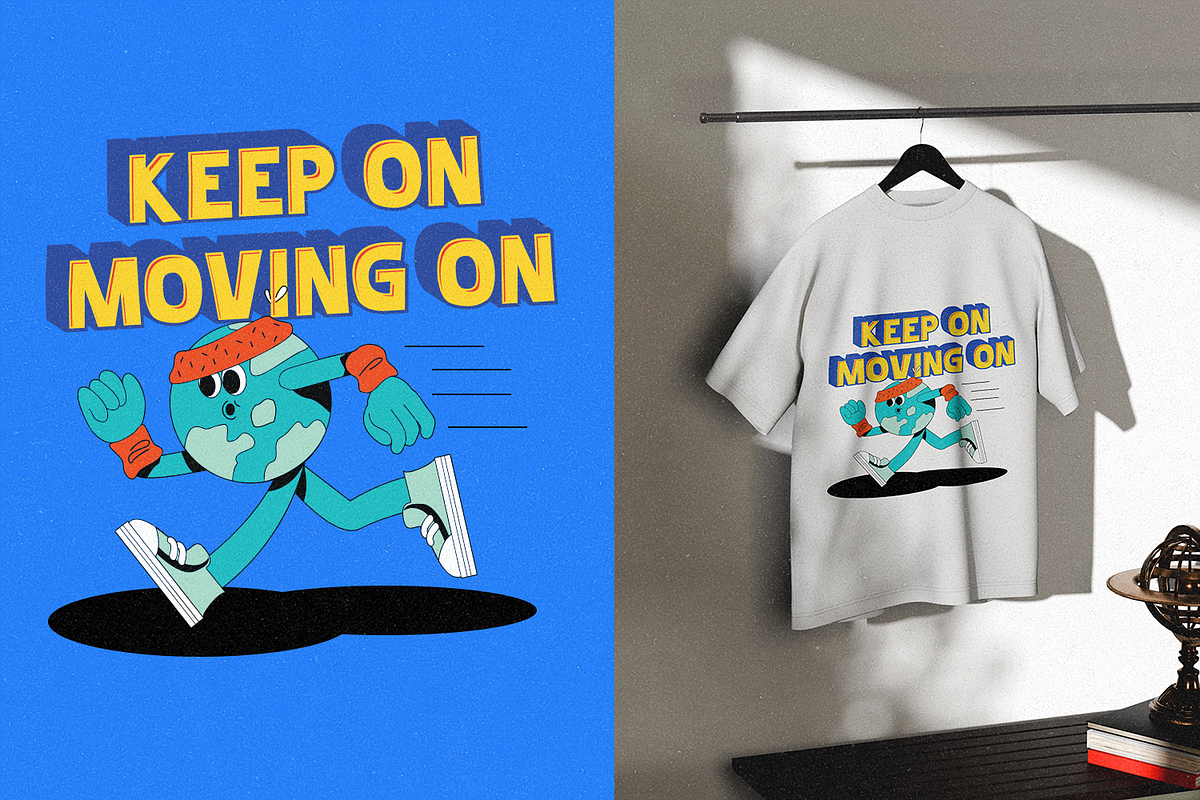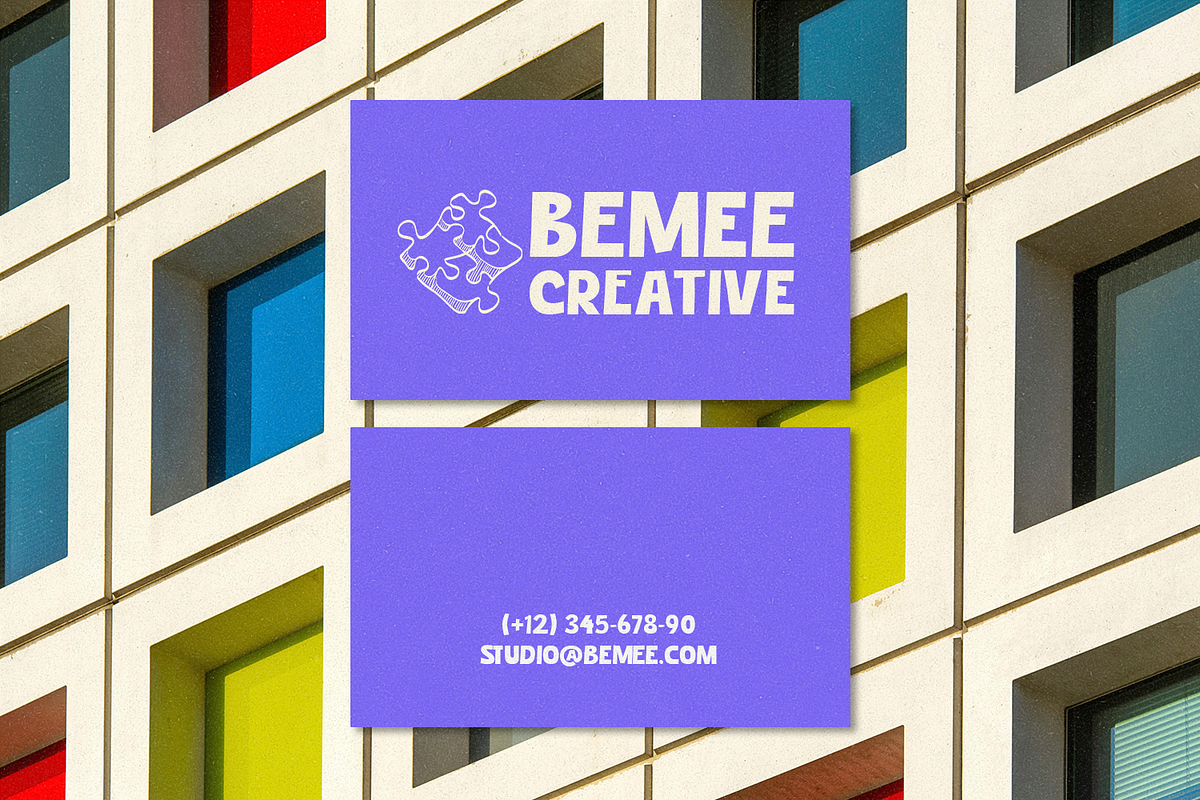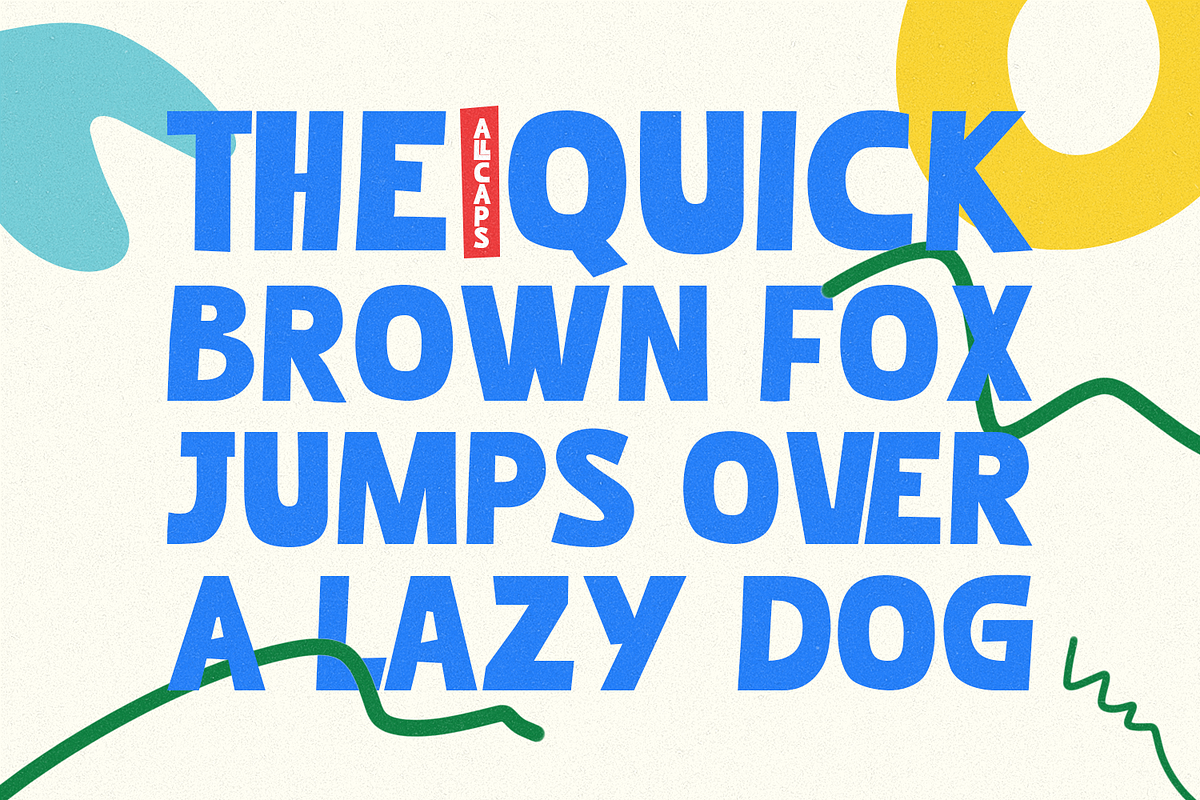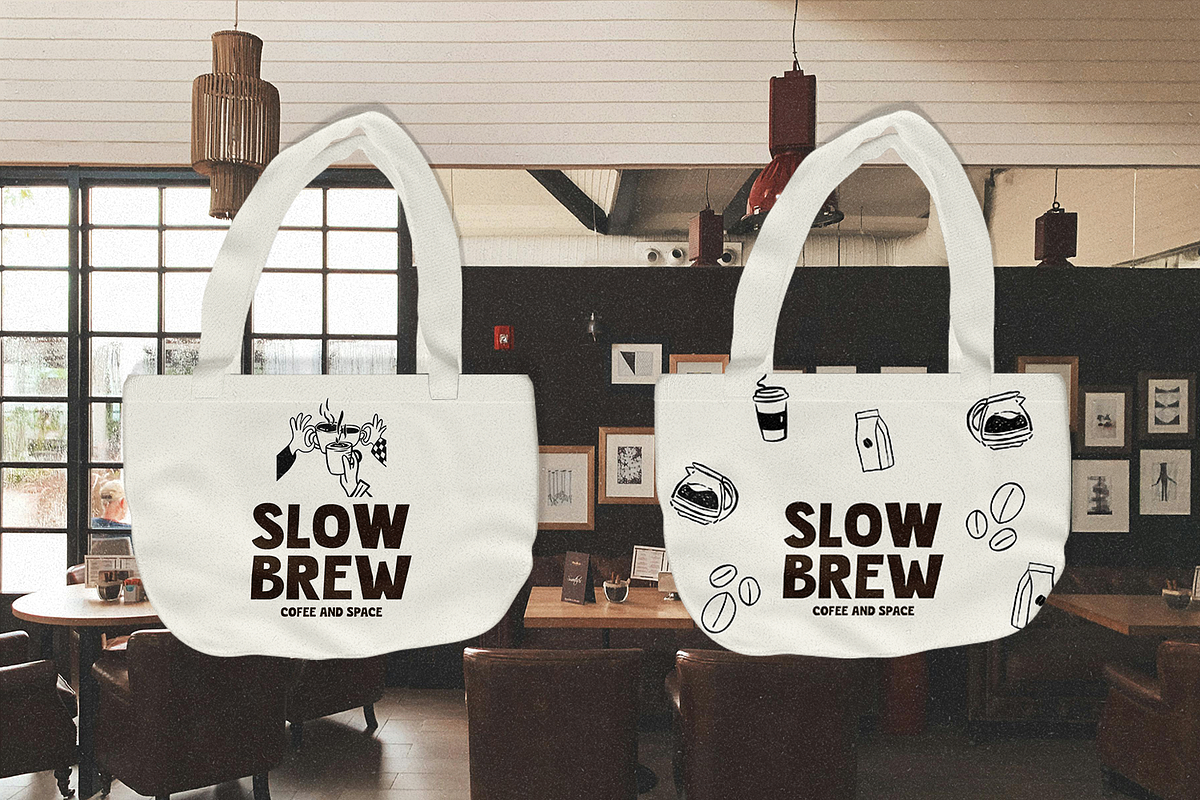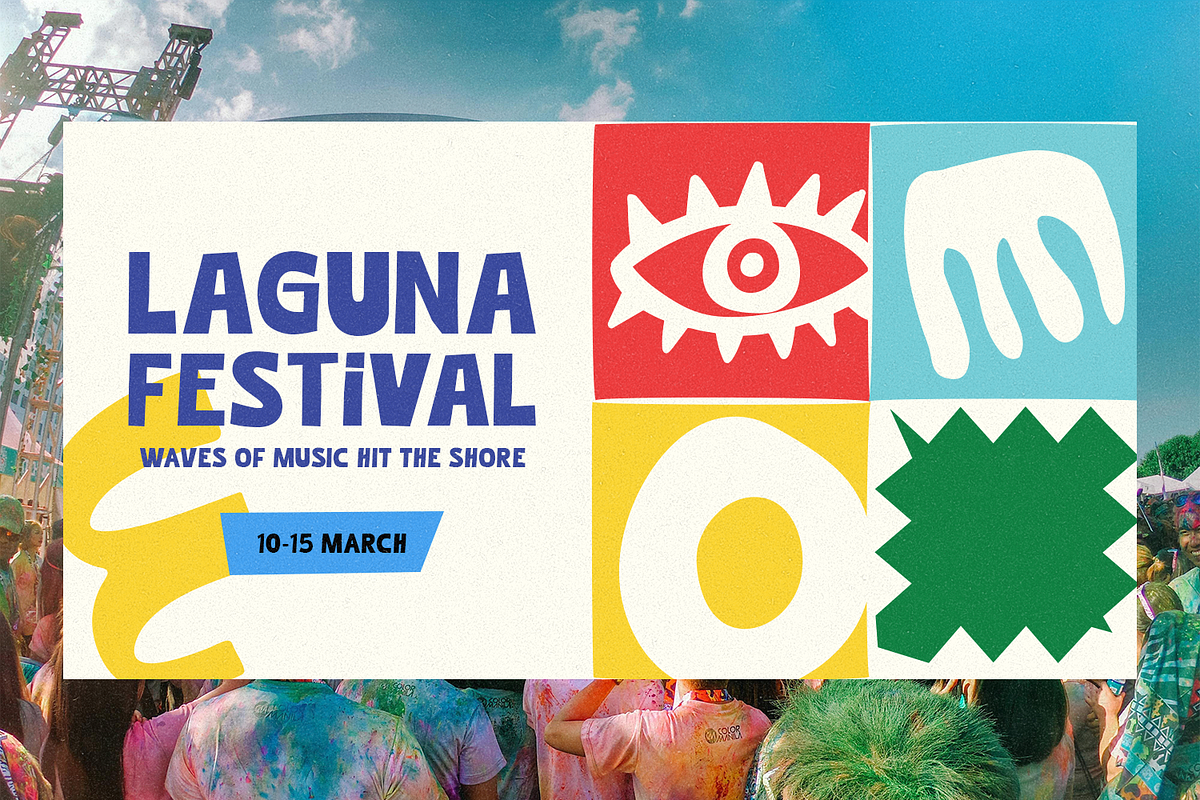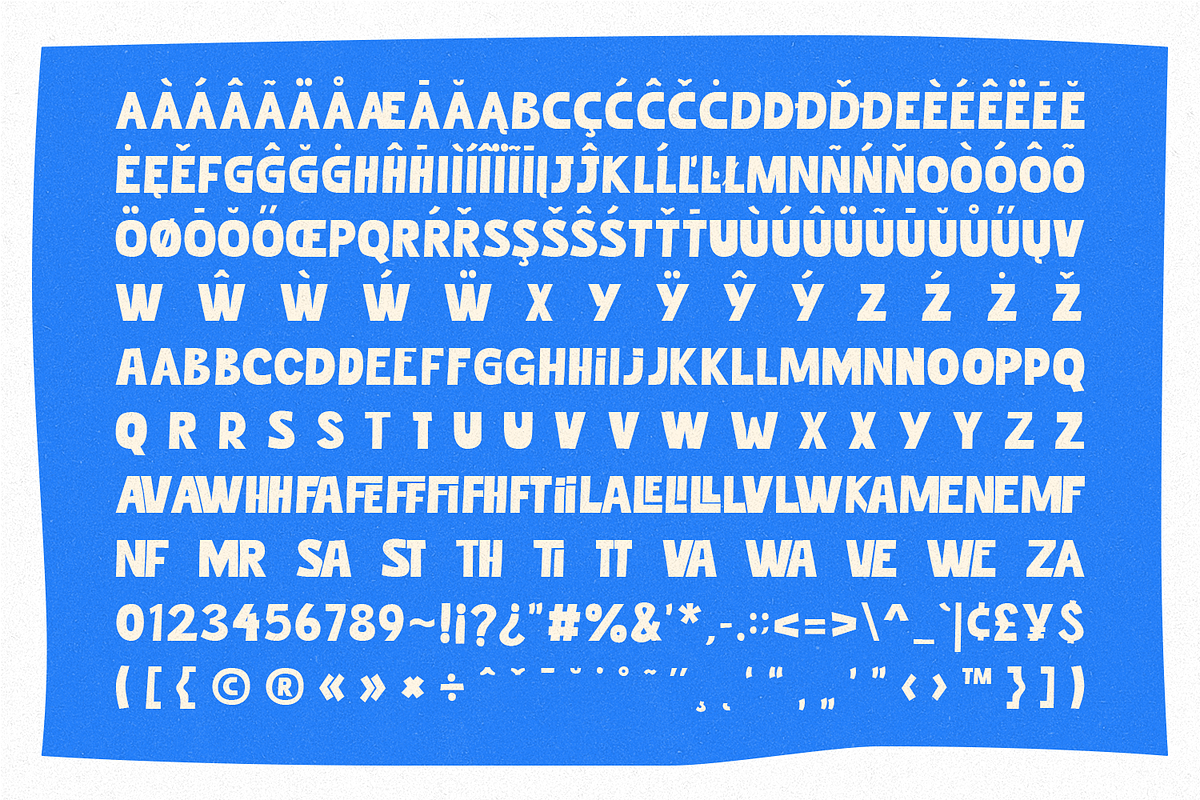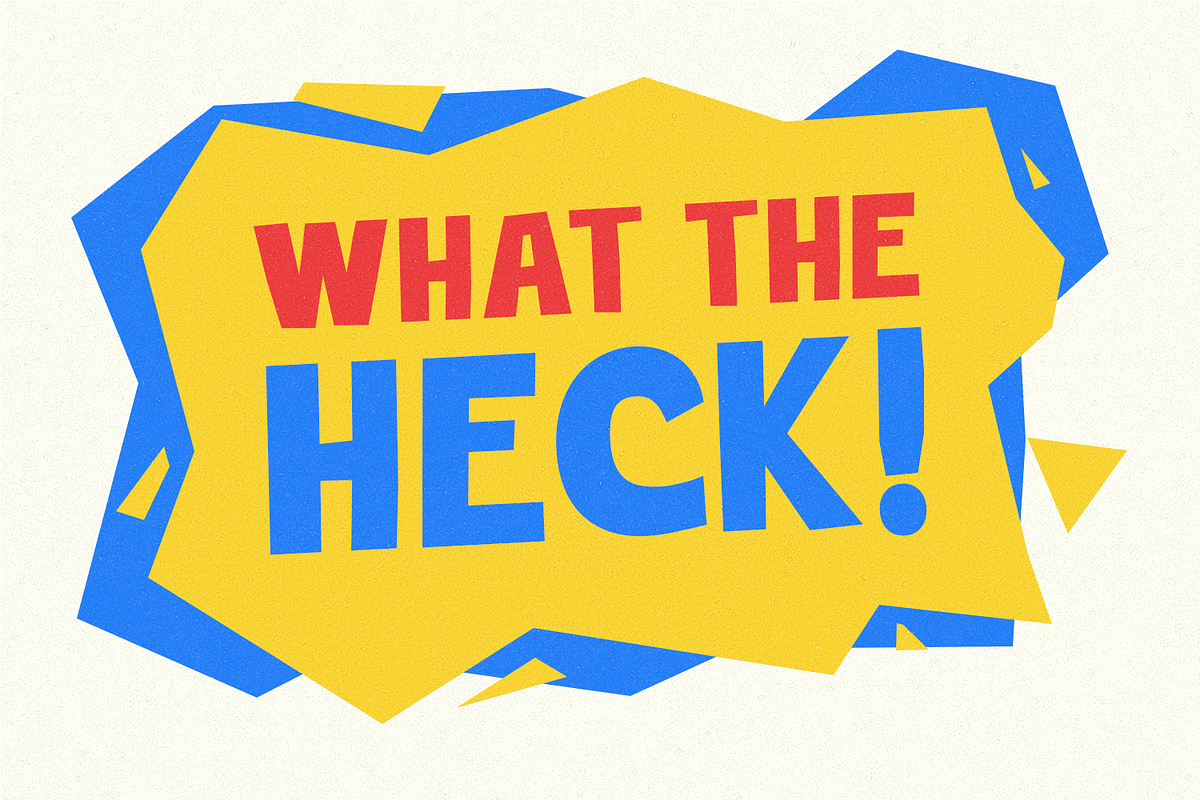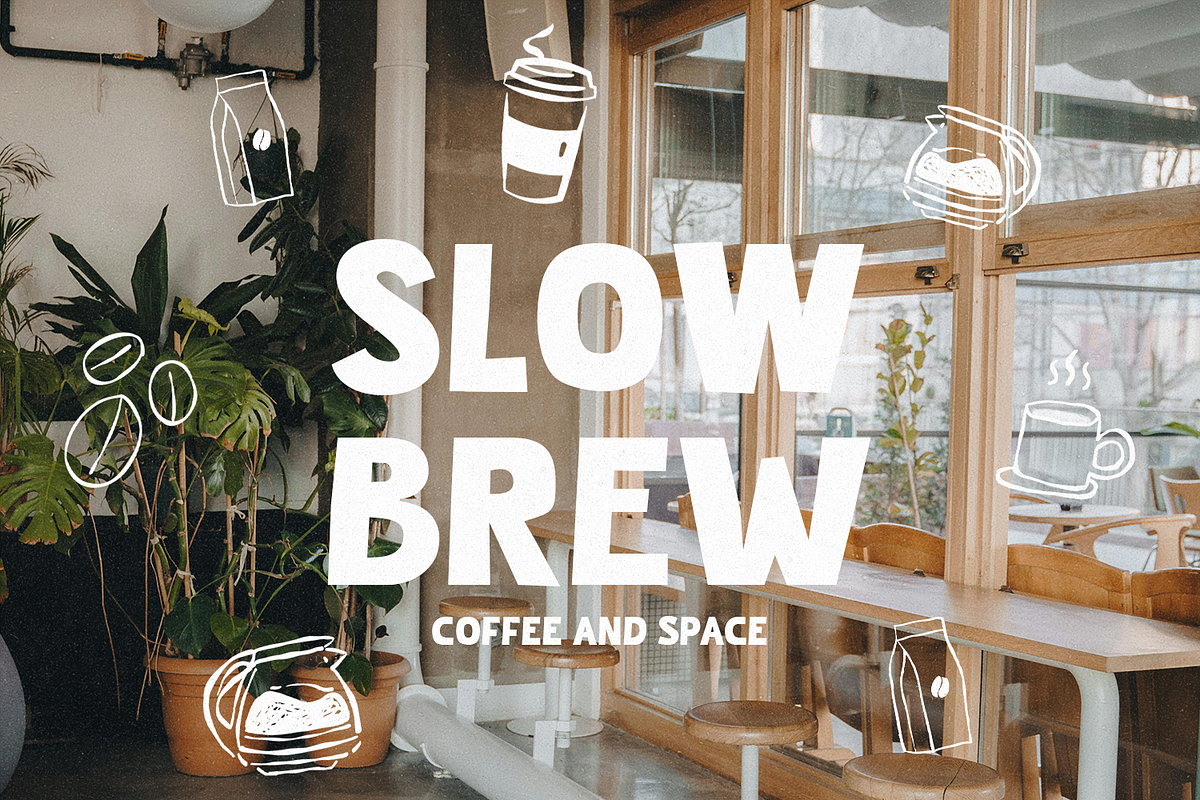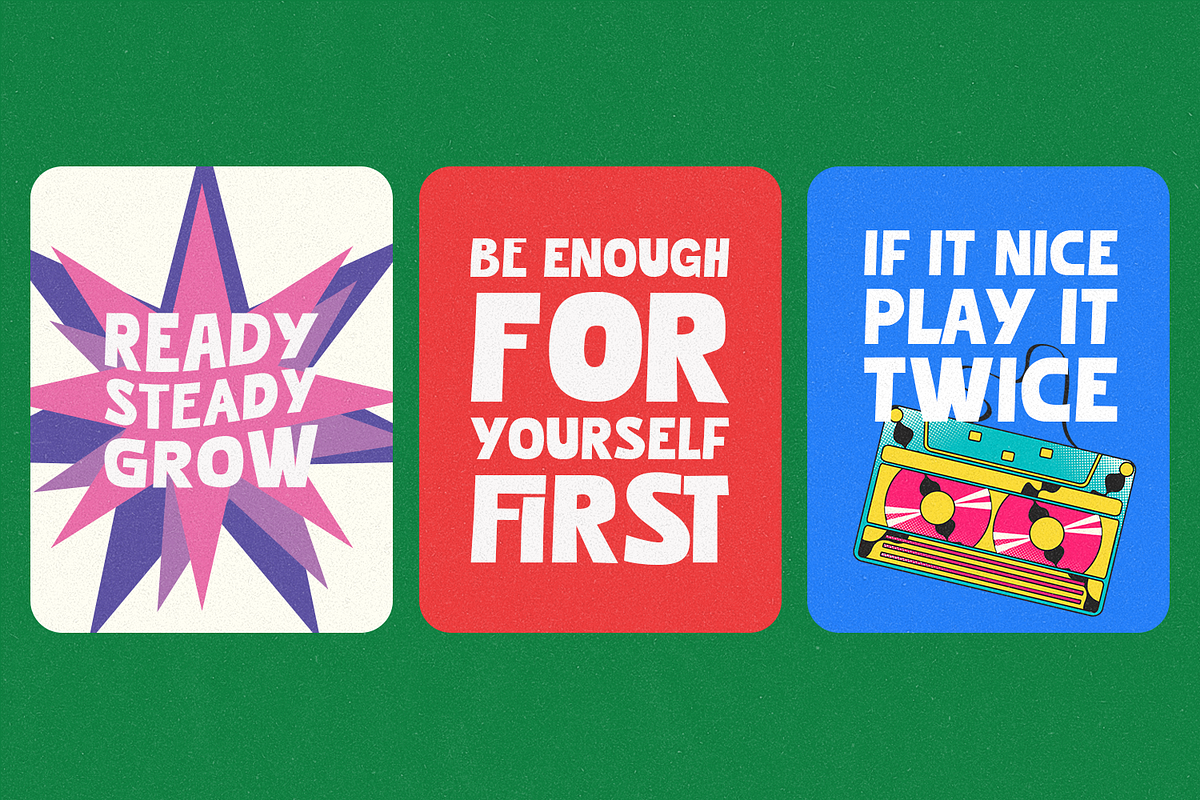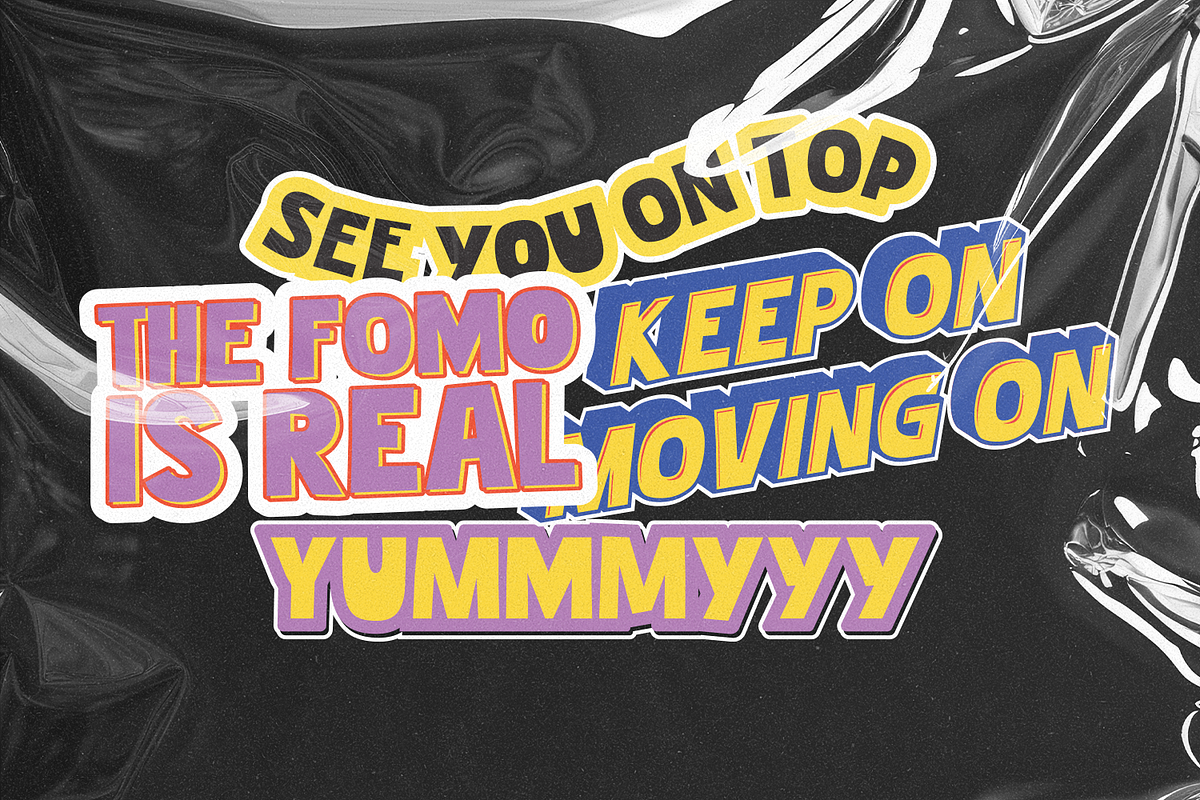
Utimate Caps Cutout Display
Utimate Caps is a bold, all-caps display typeface characterized by a distinctive cutout style, giving it a playful yet strong visual impact. Designed primarily for headline and display usage, this font features robust, chunky letterforms that command attention. The overall presentation suggests a theme of fun, energy, and retro-inspired design.
- Full multilingual character set
- OpenType features such as ligatures and alternates